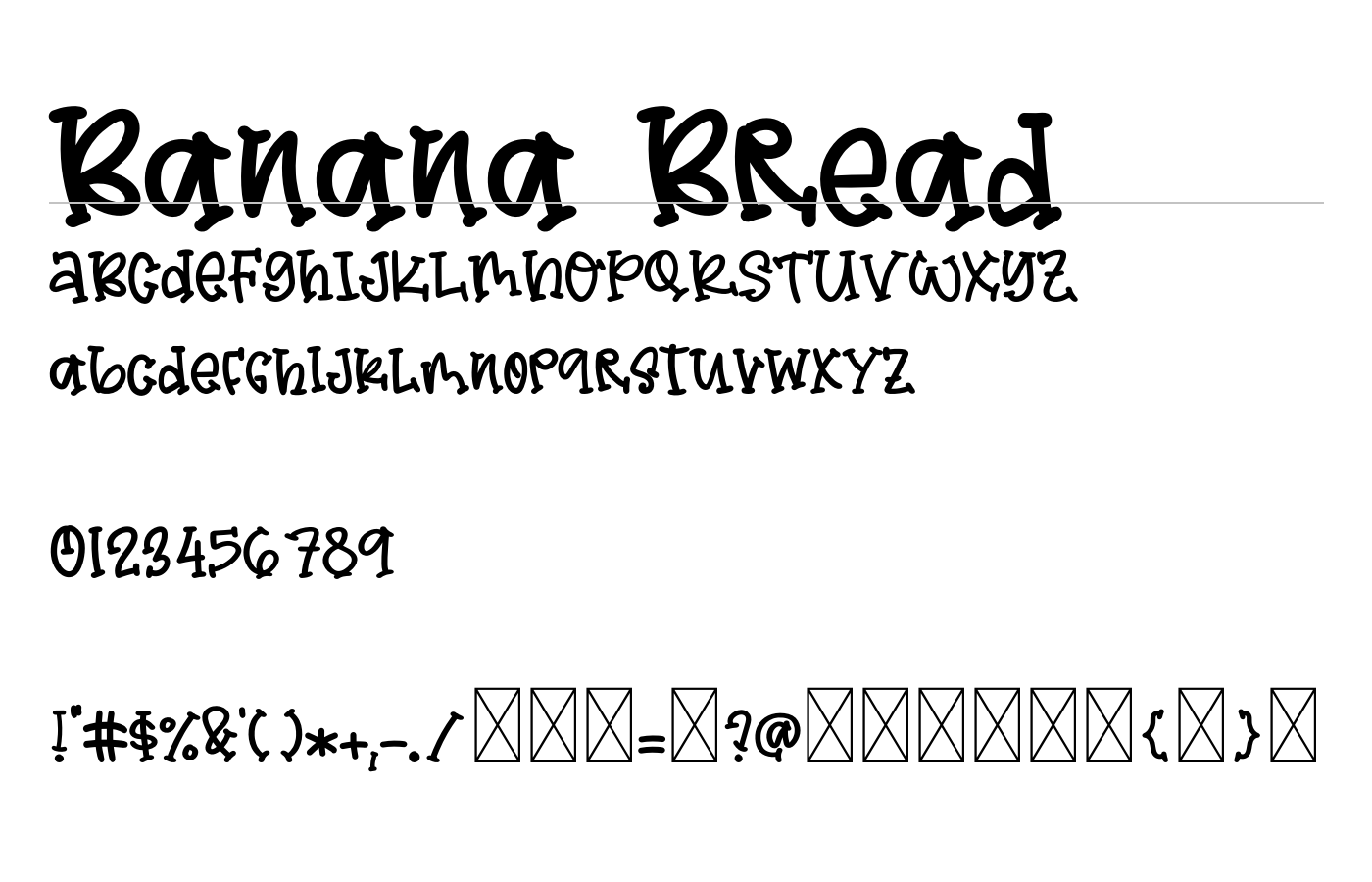
Banana Bread is a playful and casual handwritten-style font with a bold, rounded, and slightly quirky character. Its loosely structured letterforms and uneven strokes give it a friendly, approachable feel, making it perfect for informal and fun designs such as children's books, craft branding, or lifestyle blogs. This font works best for headlines or display uses where a warm, whimsical personality is desired.
Banana Bread Font